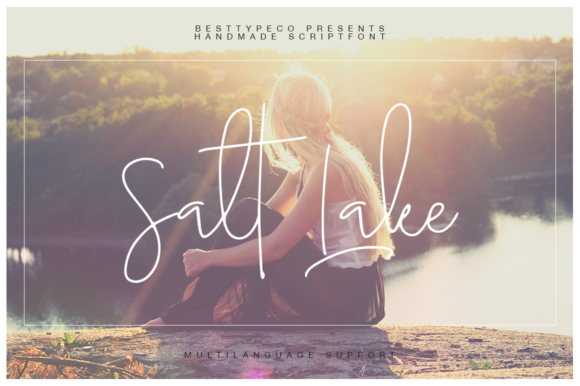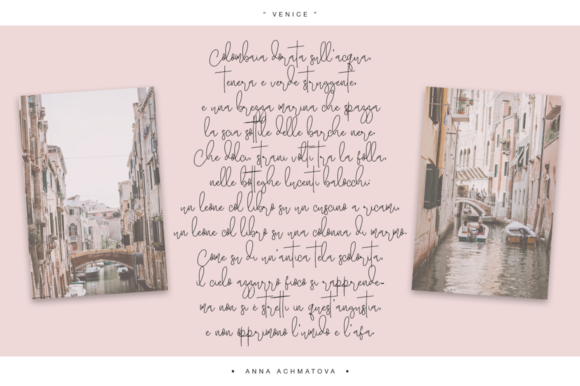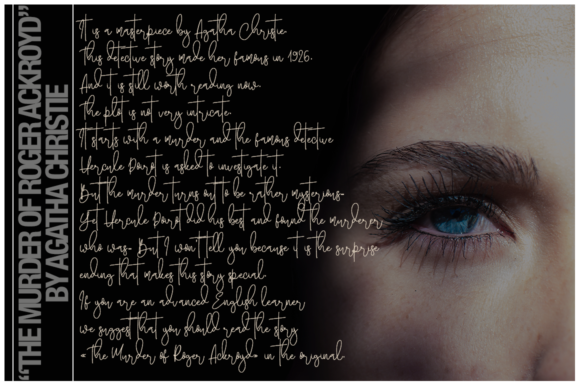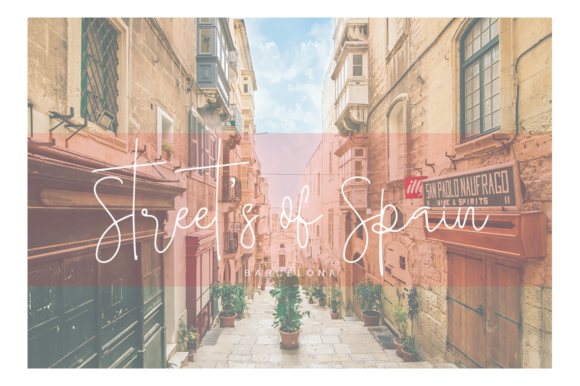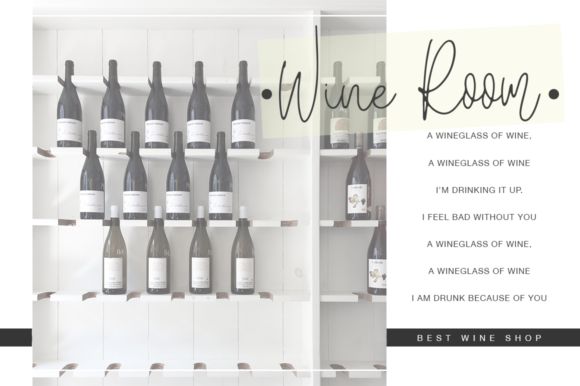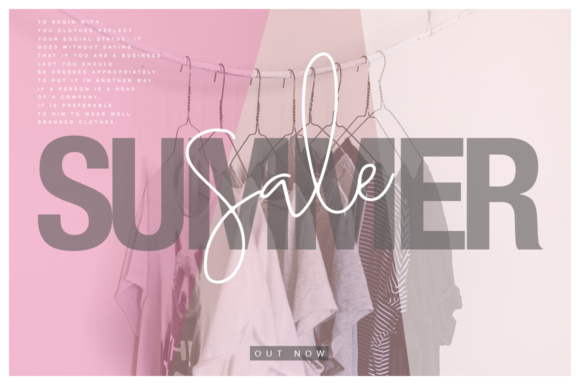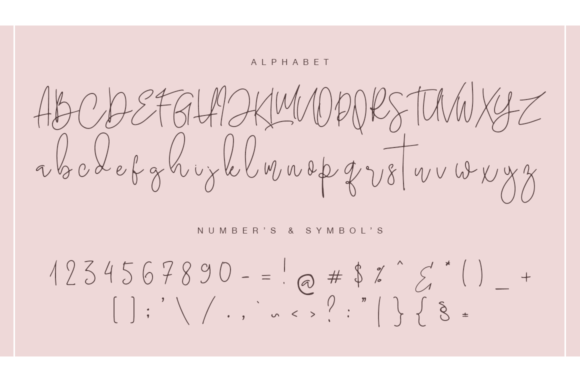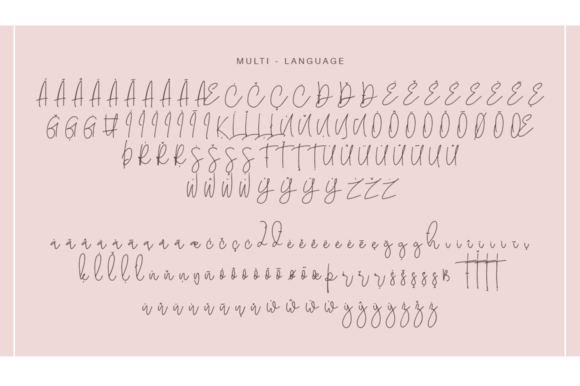
Salt Lake Font
The Salt Lake is a fresh, handmade calligraphy font. It has a modern and feminine look which makes it perfect for a wide variety of designs.